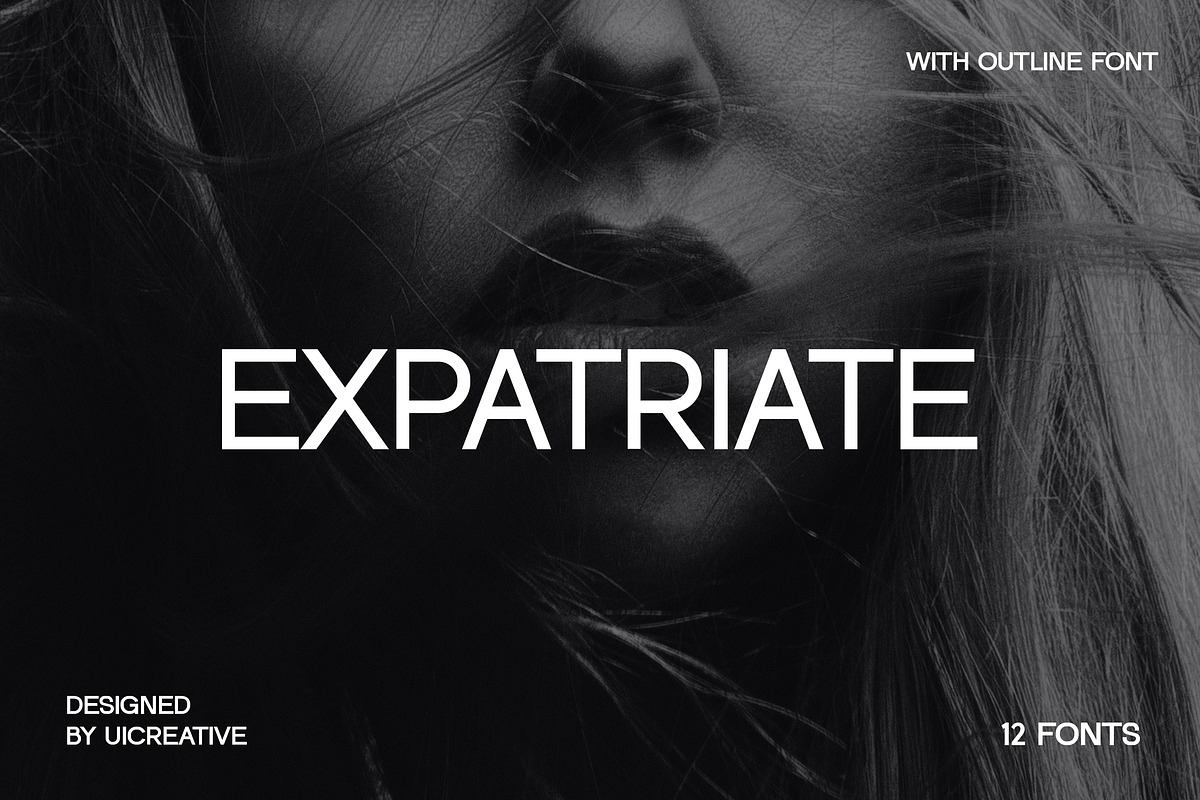
Expatriate Sans Serif Font Free Download is a sleek, modern typeface that combines simplicity with contemporary elegance. Its clean lines and balanced proportions make it ideal for branding, editorial layouts, websites, and any project that requires professional, easy-to-read typography.
Whether you're creating a modern brand identity, designing a clear and stylish website, or working on corporate materials, Expatriate brings clarity and sophistication to your typography. It’s the perfect font for designers who appreciate simplicity with a touch of elegance.